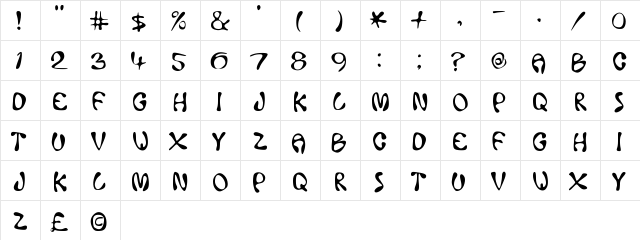
Ace Crikey Regular
| Designer | James Shields |
Ace Crikey is a composed and adaptable typeface that performs quietly and consistently across a wide range of design contexts.